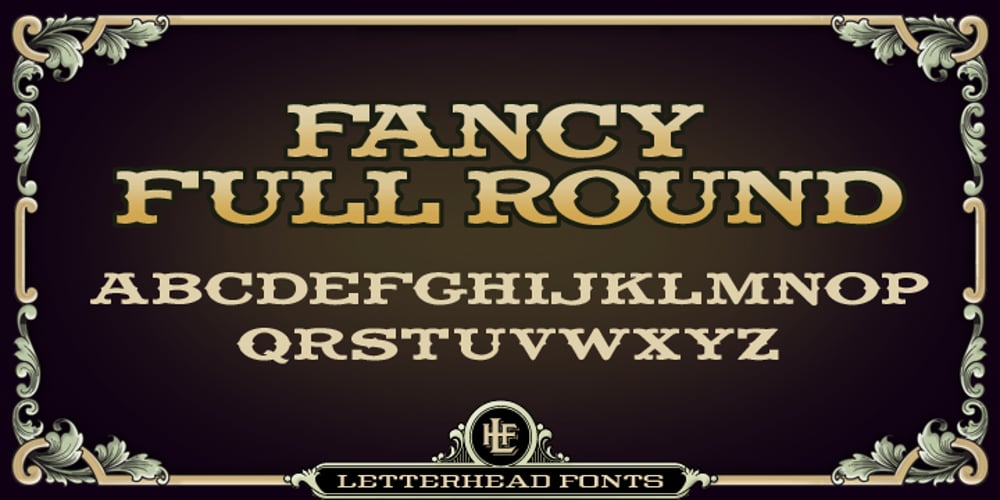
LHF Fancy Full
LHF Fancy Full font
LHF Fancy Full Font Family was designed by Chuck Davis and published by Letterhead Fonts. LHF Fancy Full contains 7 styles and family package options. Inspired by Al Imelli, early 1900s. Ideal when an “old west” feel is desired. Family includes 4 fonts: Fancy Full Round Reg, Fancy Full Round Bold, Fancy Full Spurs Reg, and Fancy Full Spurs Bold. Essentially giving you two weights with the option of spurs on the sides or sans-spurs.